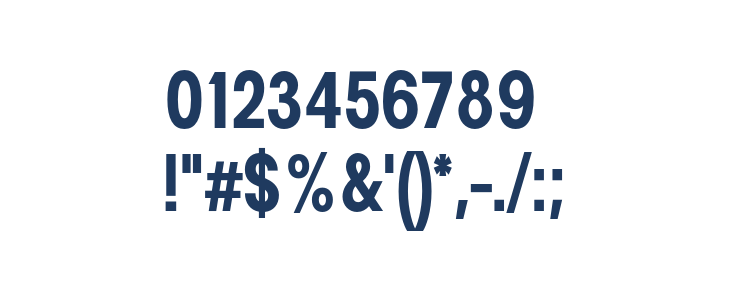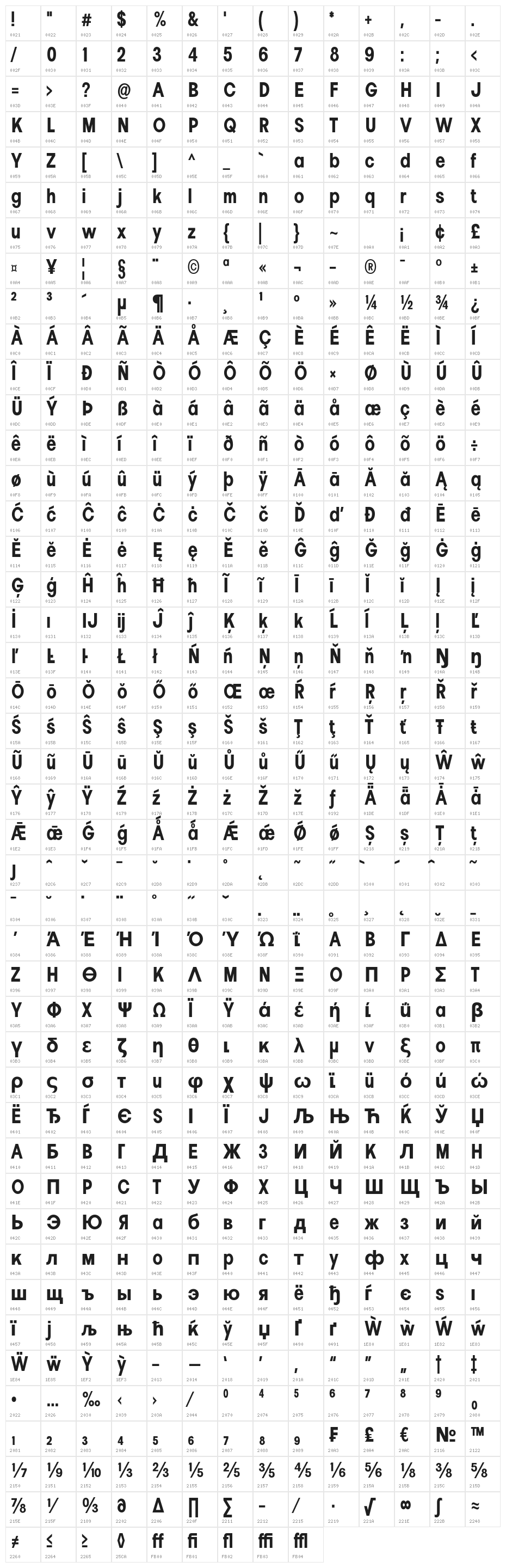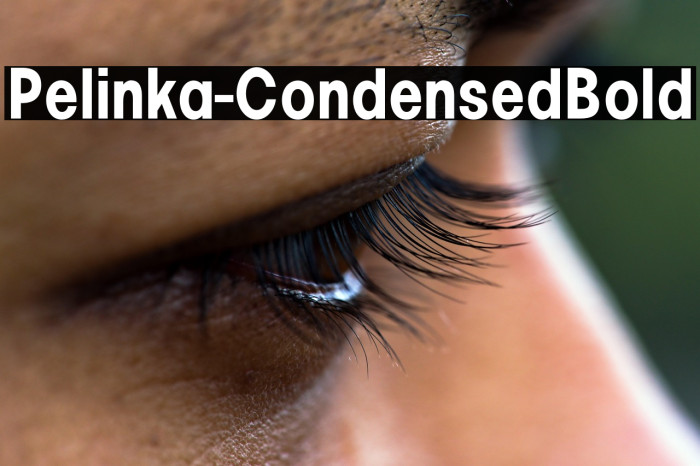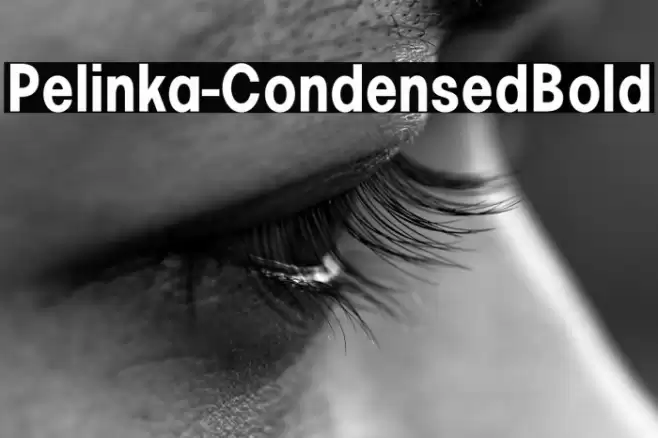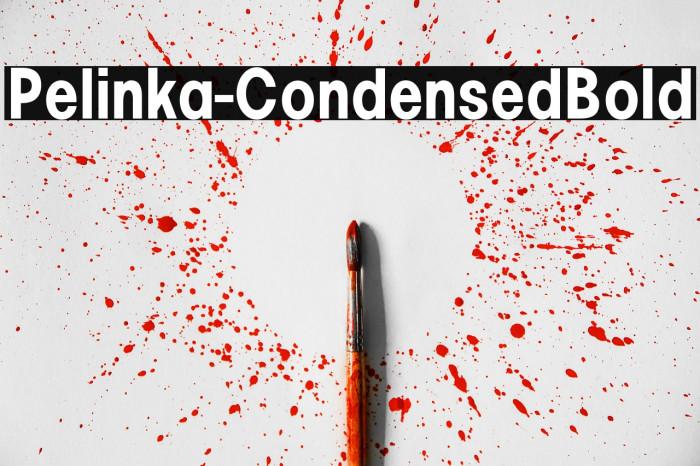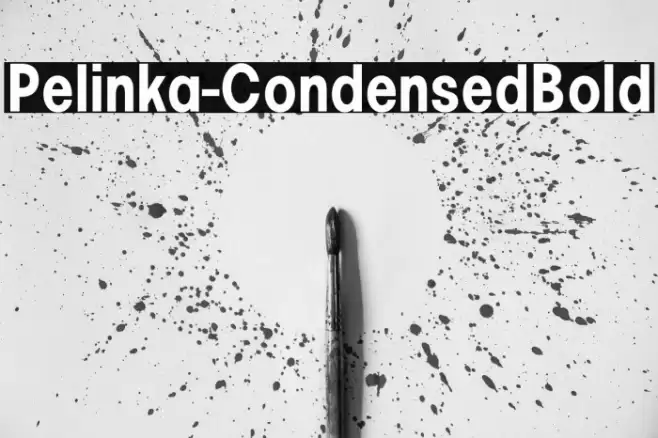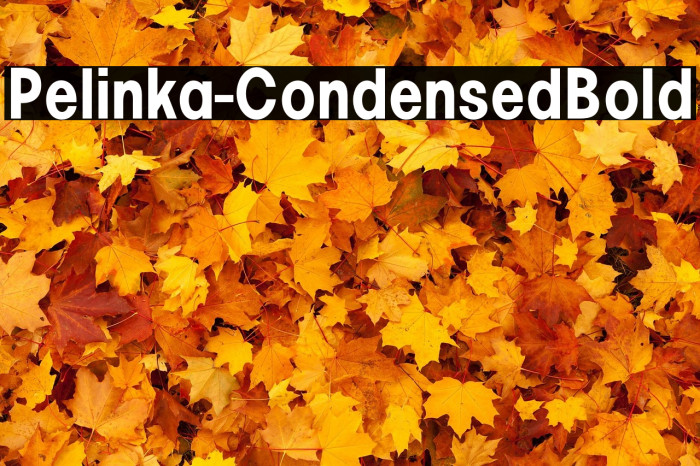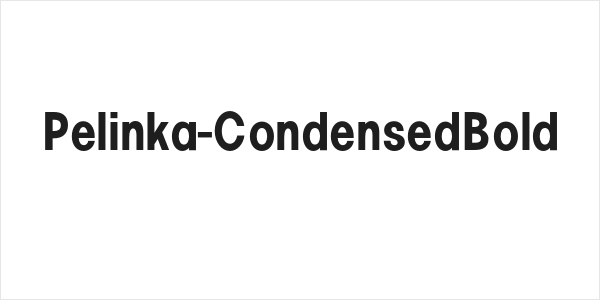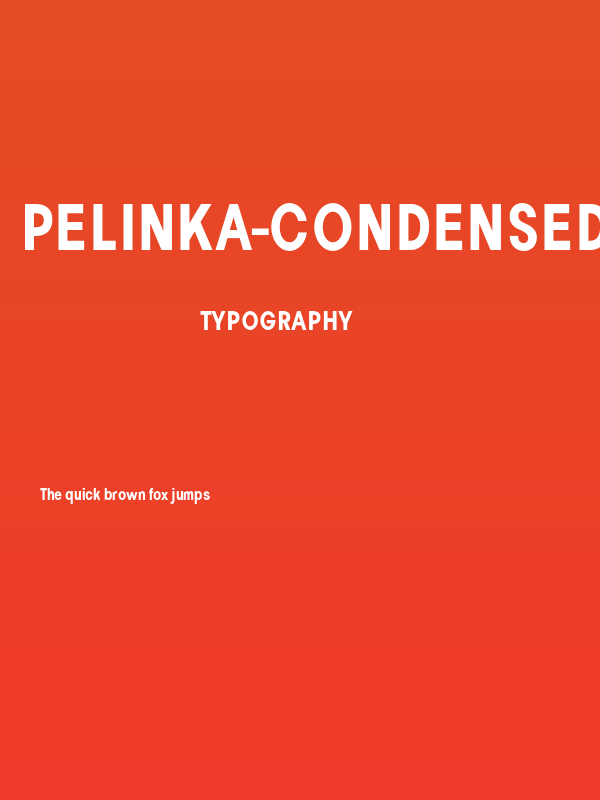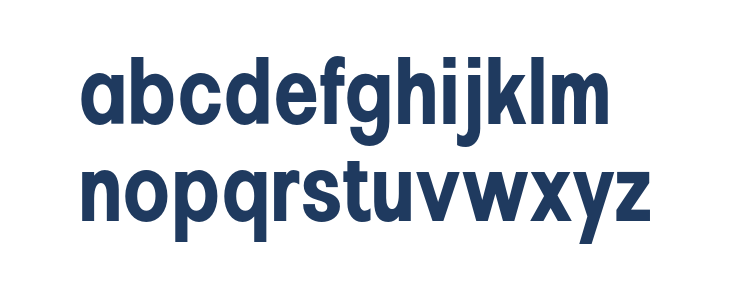
Pelinka-CondensedBold Font
Pelinka-CondensedBold Description
This typeface is a bold, condensed sans-serif font that exudes strength and modernity. The characters are uniformly thick, with minimal contrast in stroke width, providing a solid and impactful appearance. The uppercase and lowercase letters maintain a consistent height, contributing to a clean and structured look. The numerals are equally bold, ensuring readability and emphasis. Special characters are designed with the same boldness, making them stand out effectively. This font's condensed nature allows for efficient use of space, making it ideal for headlines and titles where impact is crucial.
| Proposed Projects | Ideal for headlines, posters, branding, and advertising where a bold statement is needed. |